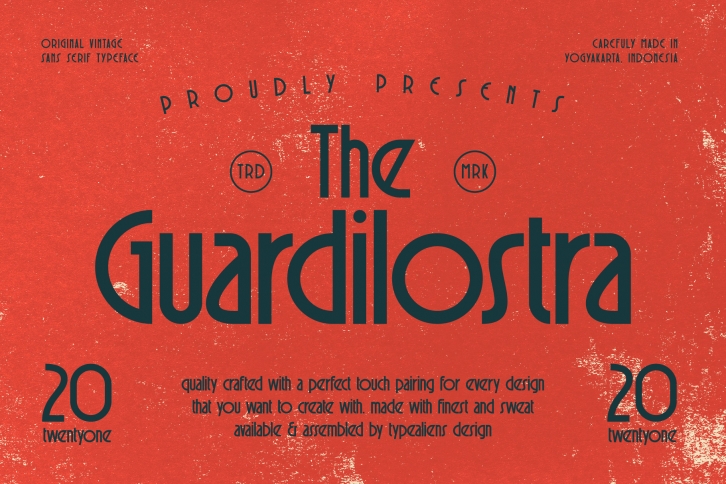
Guardilostra is a vintage styled, unique and cool sans serif font. It looks both adaptable and retro and it will most certainly elevate each design with its vibe.